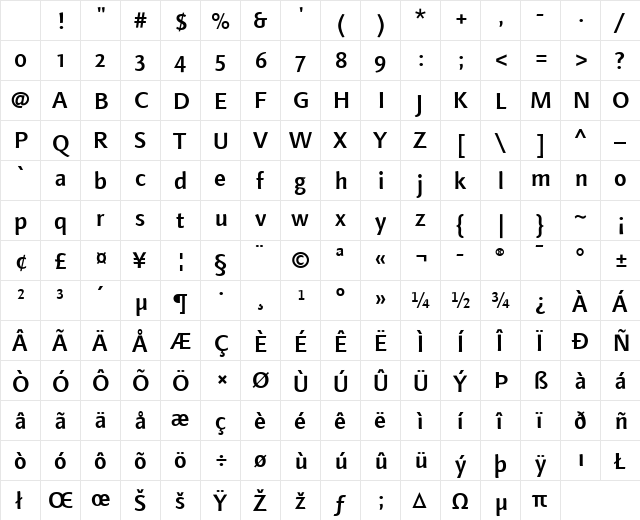
Complete LTFinnegan OsF Medium Regular glyph index. Displaying only characters natively supported by LTFinnegan OsF Medium Regular font.
LTFinnegan OsF Medium is a composed and adaptable typeface that performs quietly and consistently across a wide range of design contexts.